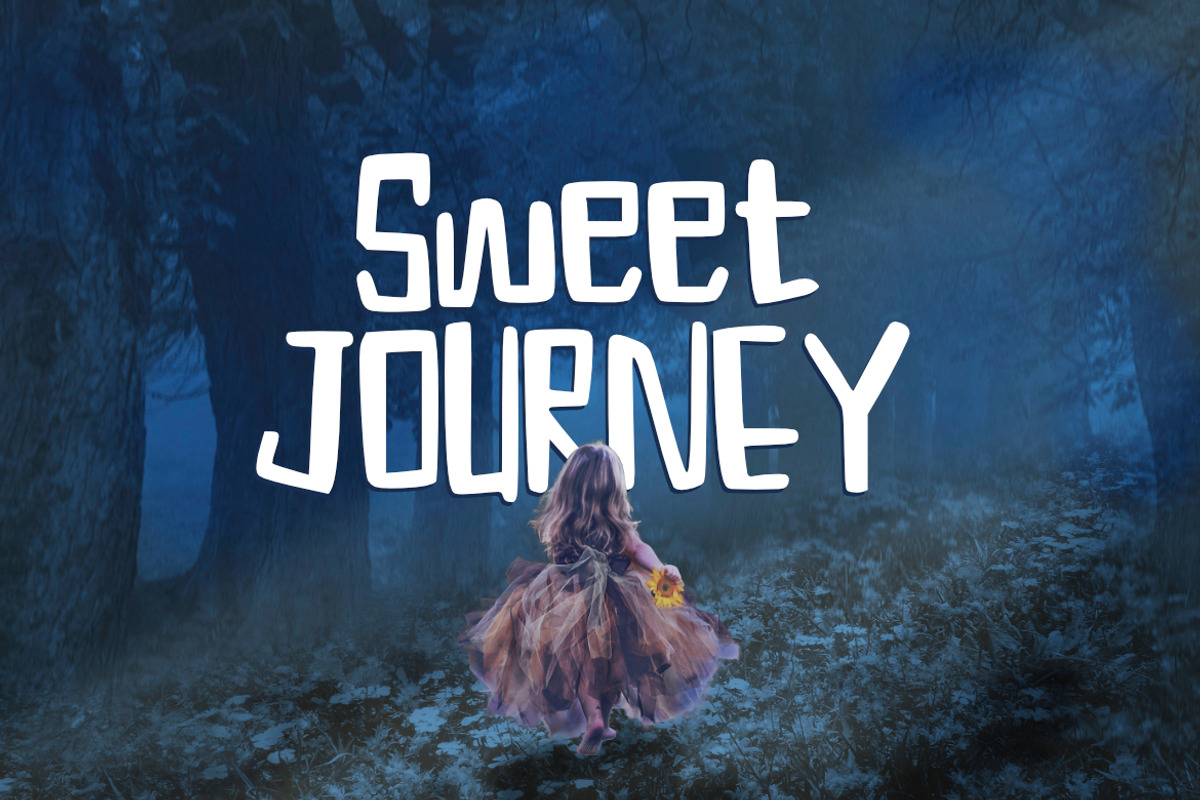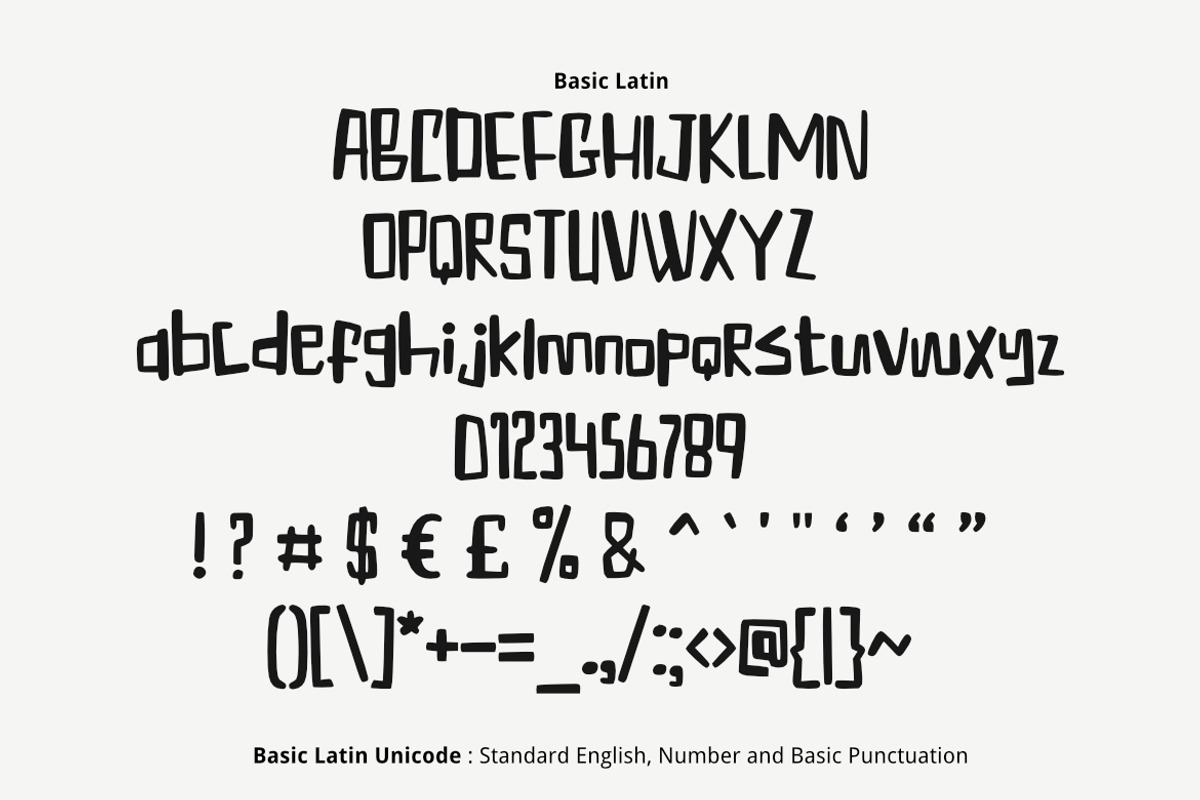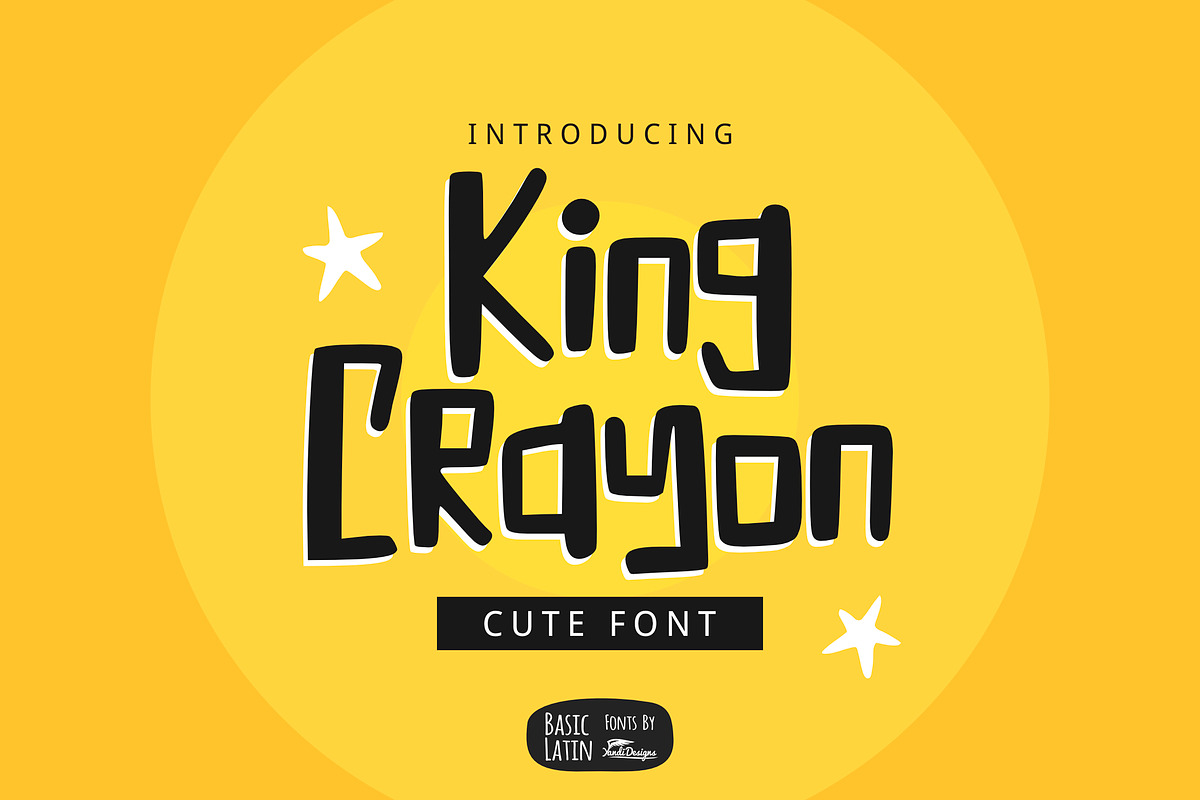
King Crayon Font (70% OFF)
King Crayon font is simple cute multipurpose handmade font , suitable for many project children book, quotes, logo , heading , title etc.
King Crayon Font (70% OFF) by YandiDesigns fits naturally into Branding, posters, packaging, typography.